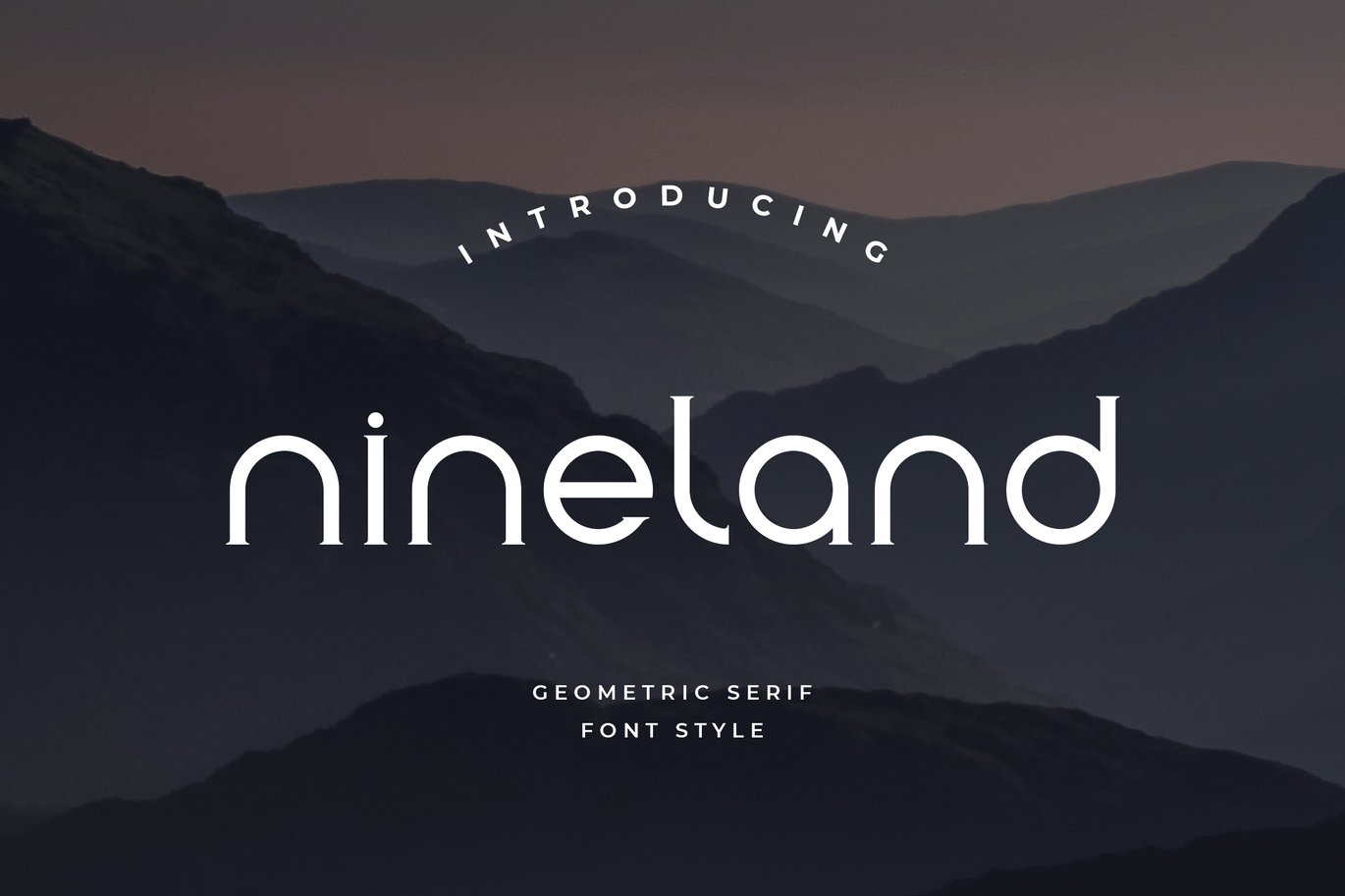
Nineland Modern Geometric Serif Font
Nineland is perfect classy and elegant modern geometric font . Can make it easier to convey the message in your design. Use for awesome display, labeling, clothing, movie sceen, poster, movie title, gigs, album covers, logos, and much more. It’s also could be good for both fun and semi-formal text.